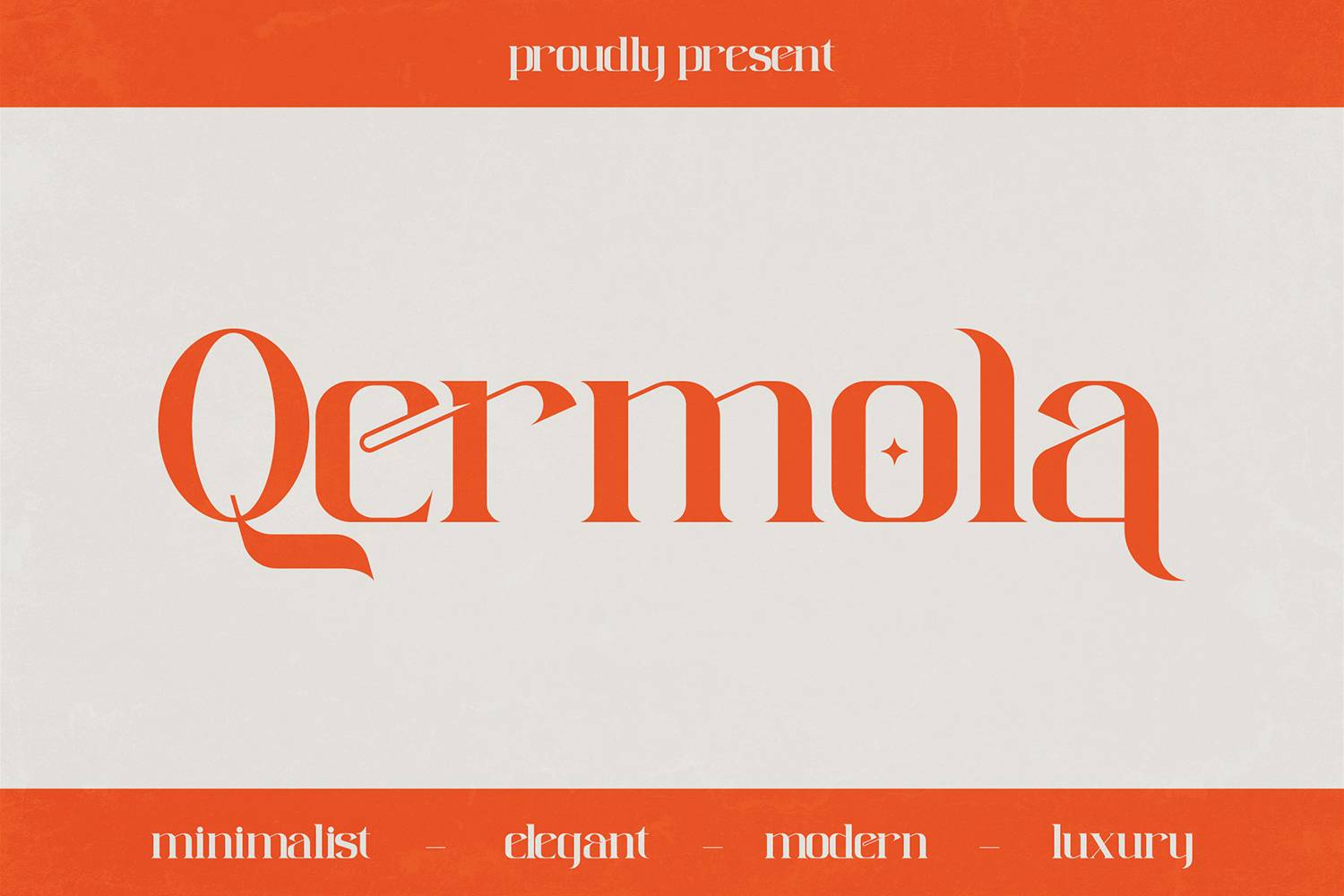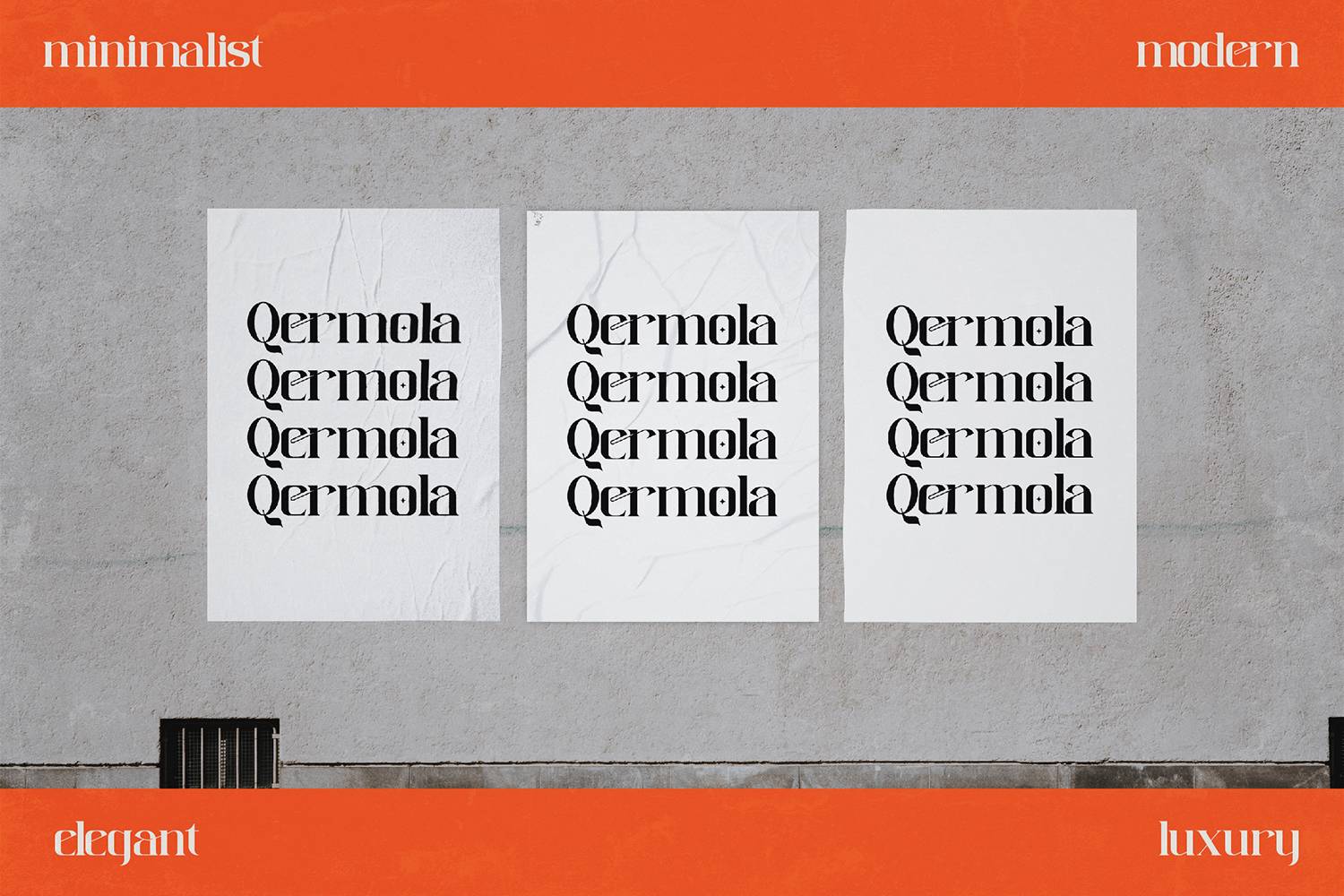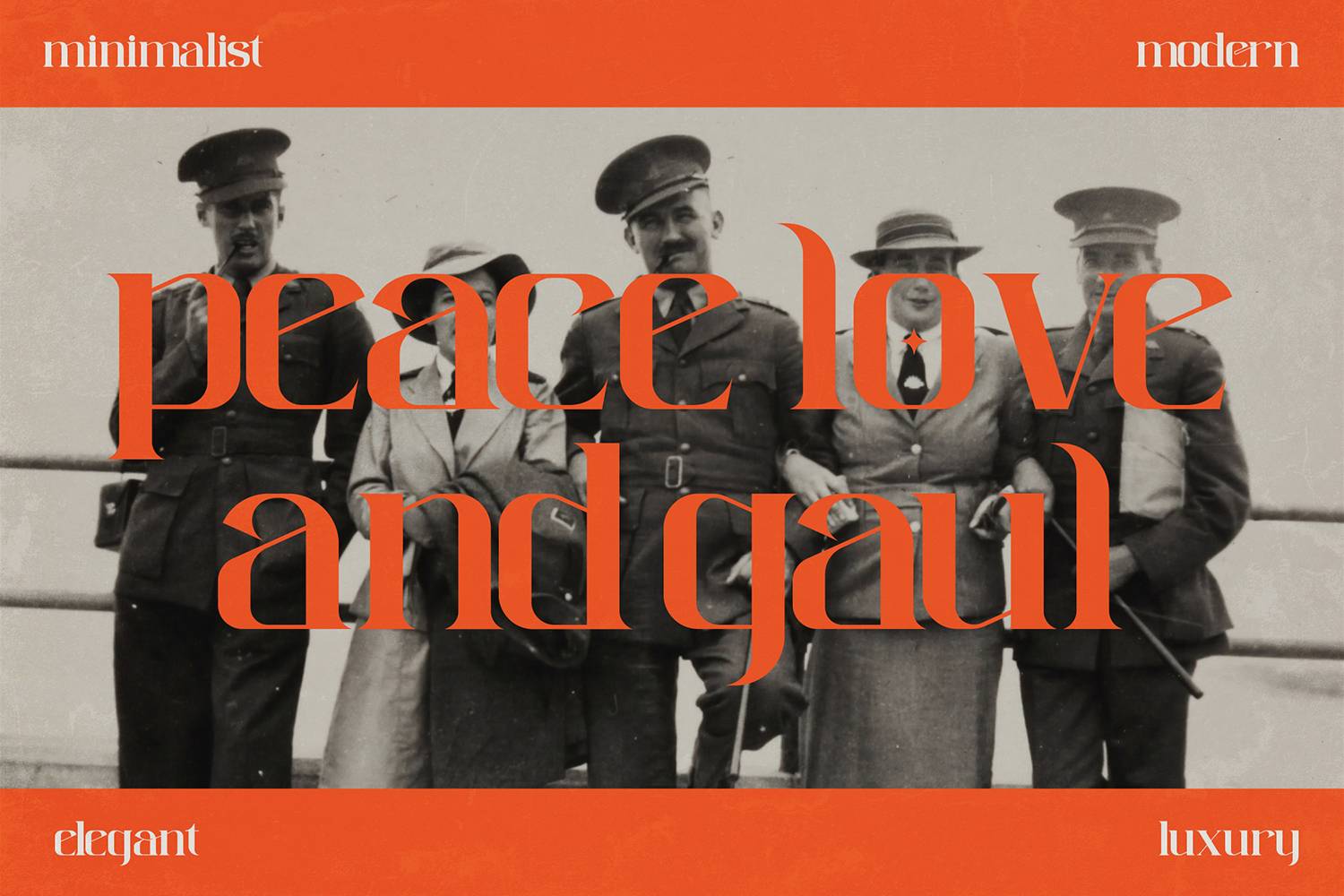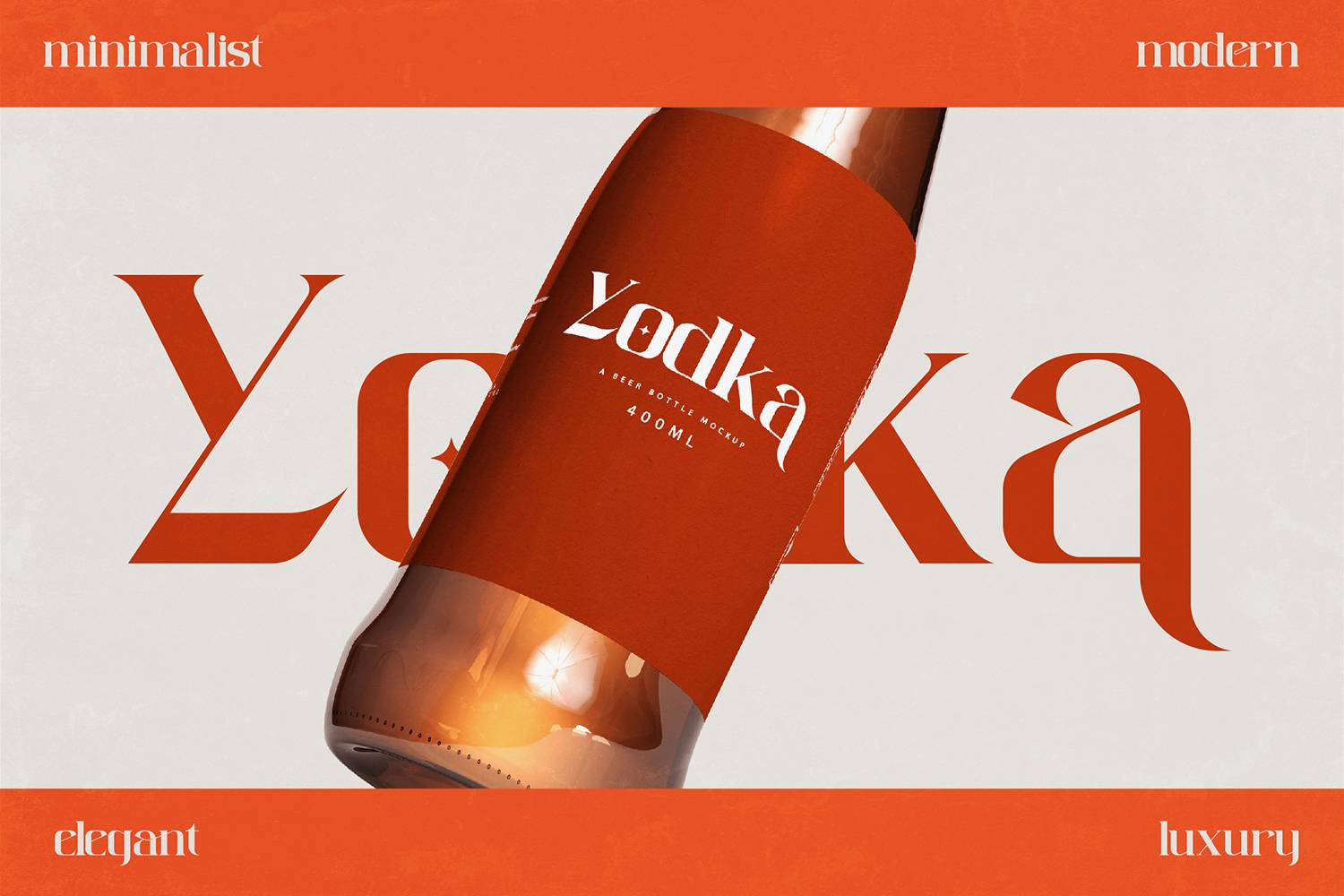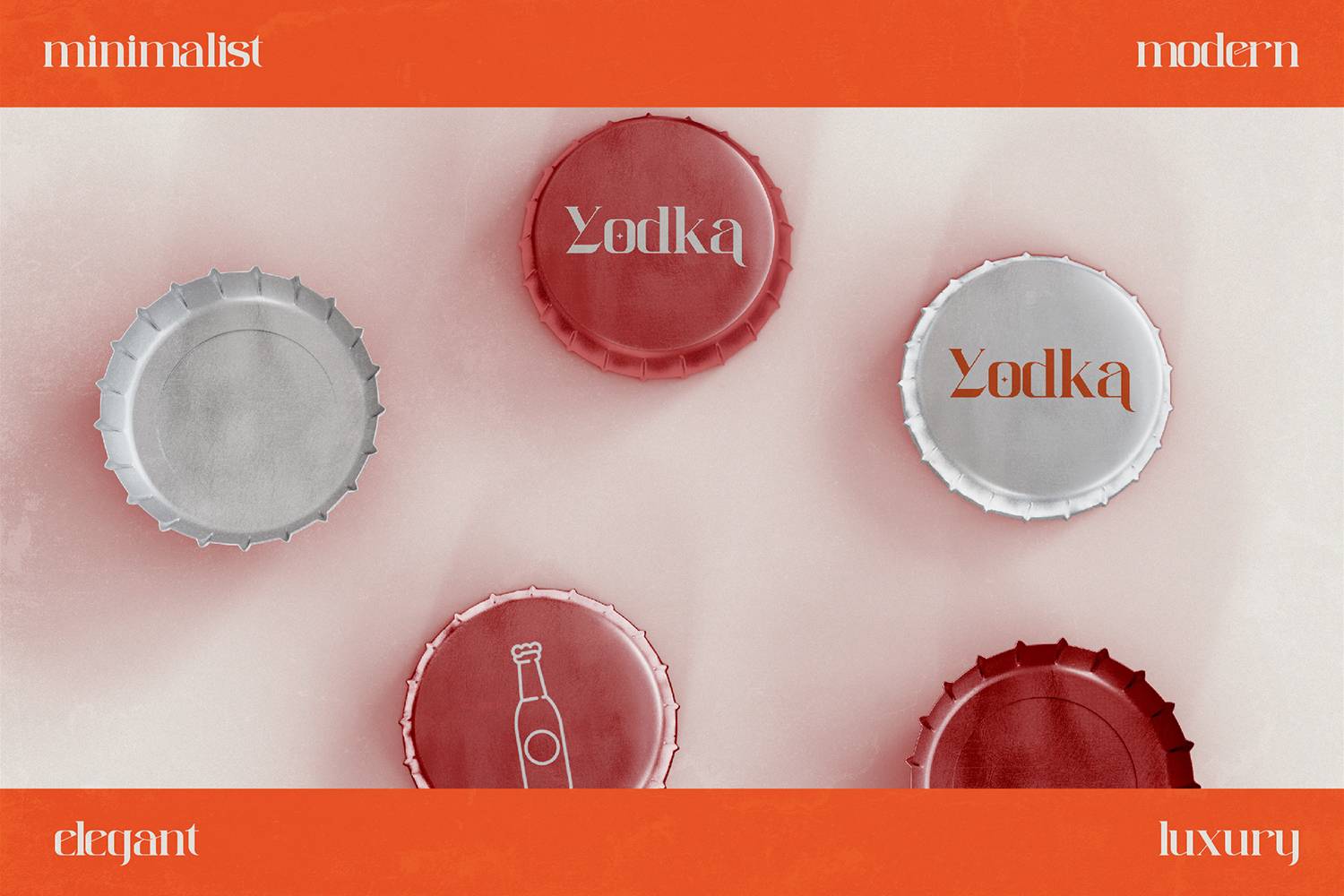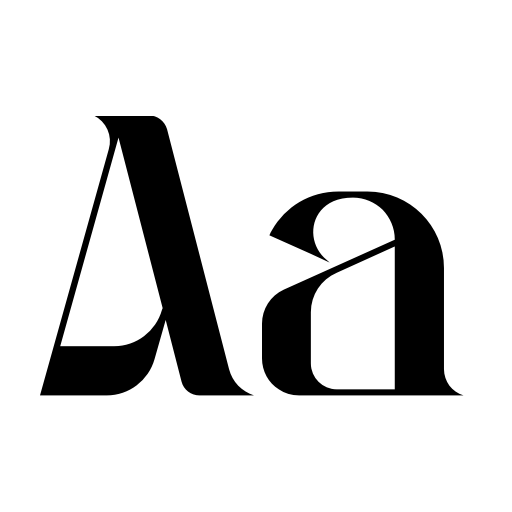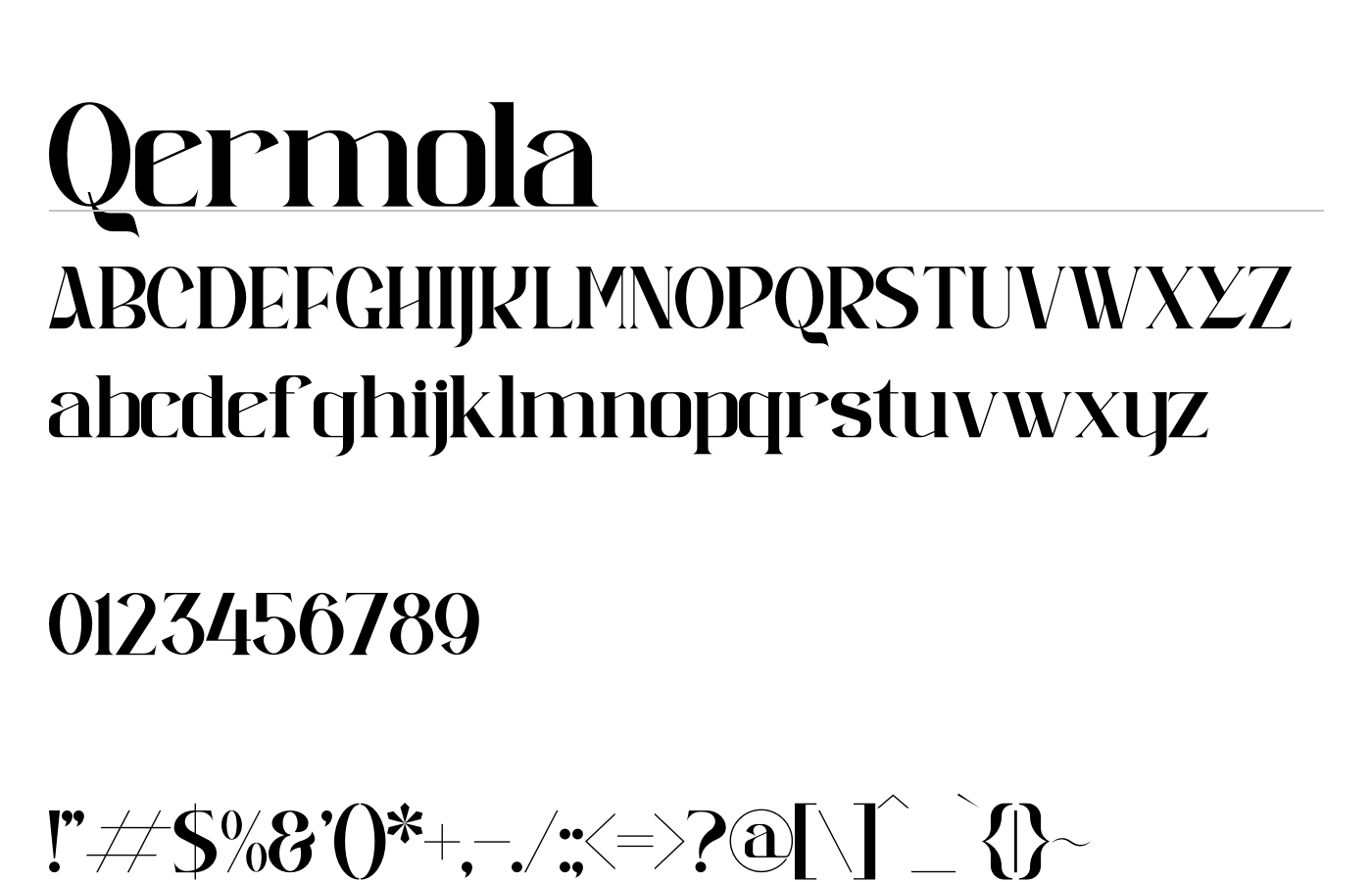
Qermola is a high-contrast serif font with a modern Didone style, featuring sharp, elegant strokes and thin, unbracketed serifs. Its condensed width and tall x-height create a refined, sophisticated look that works beautifully for luxury branding, editorial headlines, and fashion-focused design. This font’s striking letterforms and unique details add a touch of exclusivity and timelessness, making it ideal for projects that require both style and authority.
Qermola Font